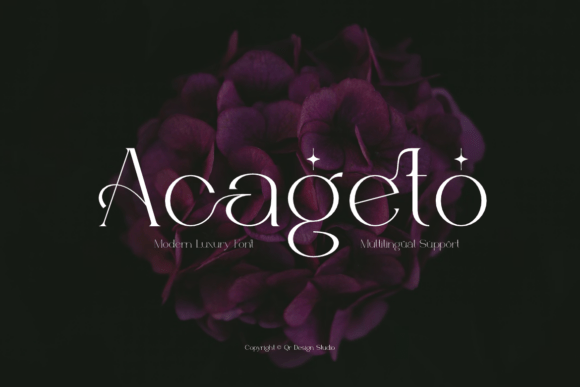
The Acageto Font: A Serif Showstopper for Your Design Projects
I’ll never forget the design project that led me to discover the Acageto Font. I was working on a branding project for a luxury watch company, and I needed a font that exuded elegance and sophistication. After hours of scouring font libraries and testing various typefaces, I stumbled upon Acageto. Its unique blend of serif and display features immediately caught my eye, and I knew I had found the perfect fit.
An Honest Review: What I Love and What I Don’t
- ✅ Authentic Display Typeface: Acageto Font boasts a distinctive, high-end look that’s perfect for logos, modern designs, and more.
- ✅ Multilingual Support: This font supports multiple languages, making it an excellent choice for global brands or projects with diverse audiences.
- ✅ Easy to Read: Despite its elegant design, Acageto remains highly legible, even at smaller font sizes.
- ✅ Versatile: This font shines in various contexts, from print materials to digital platforms.
- ⚠️ Occasional Kerning Issues: As with any font, some users may experience kerning issues, particularly when using certain character combinations.
- ⚠️ Limited Use in Body Text: While Acageto is stunning as a display font, it may not be the best choice for lengthy body text due to its elegant, yet slightly ornate design.
The Story Behind Acageto: Designer Inspiration
Acageto’s creator drew inspiration from classic serif fonts, aiming to craft a unique, elegant typeface that would stand out in various design contexts. The result is a font that exudes sophistication and refinement, perfect for designers seeking to elevate their branding projects.